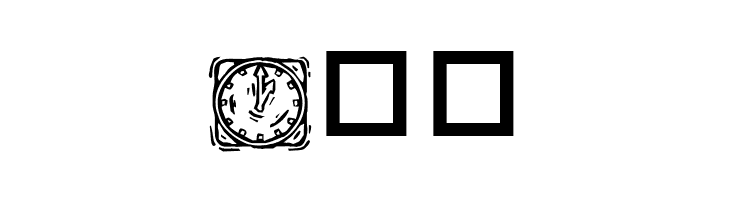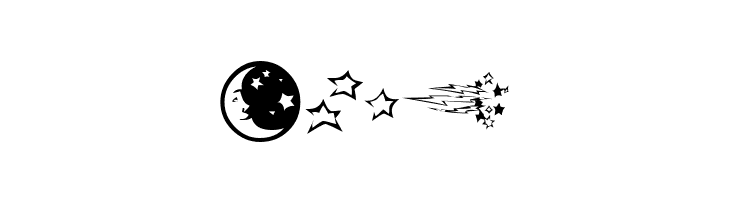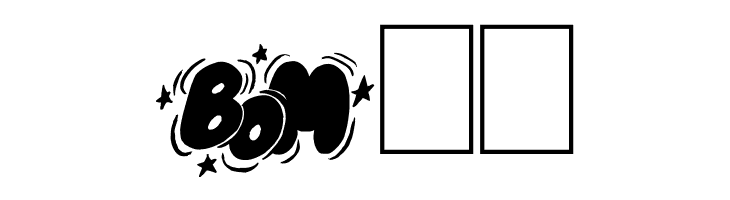
A whimsical, time-themed decorative font with playful clock and celestial motifs.
A decorative collection of star-themed symbols and icons.
A bold, jagged font with spiky, energetic characters.
A diverse set of outlined label and badge border shapes.
Hand-drawn comic speech and thought bubble designs.
A bold, comic-inspired display font full of energy and movement.
An ornate and decorative font with intricate, snowflake-like patterns.
A bold, spiky font with a dynamic and energetic appearance.